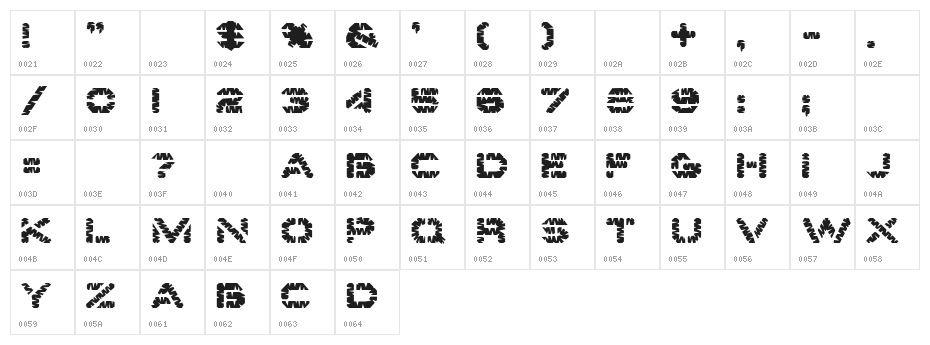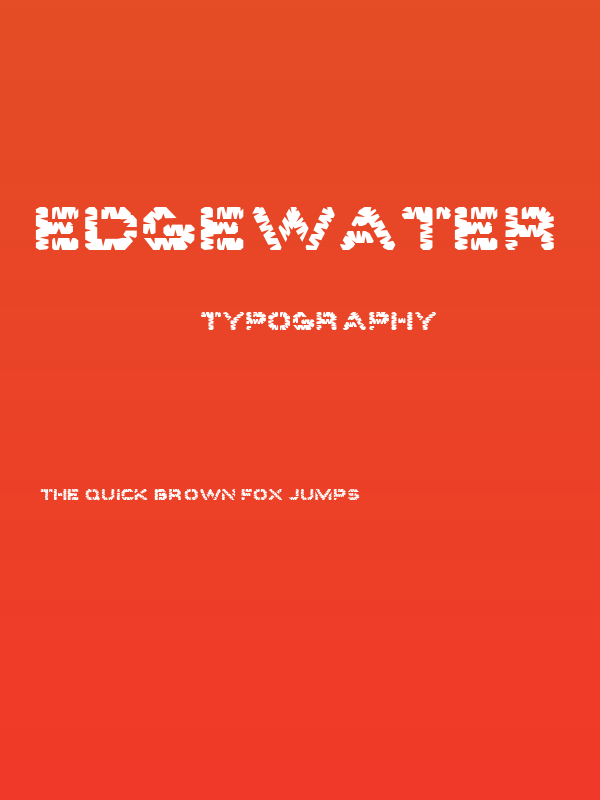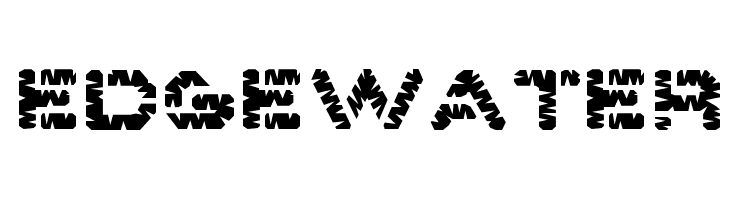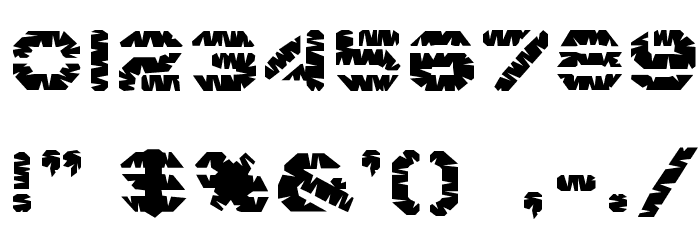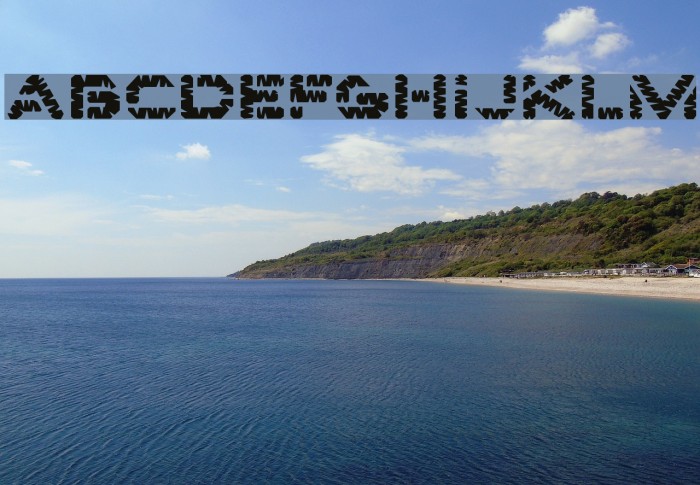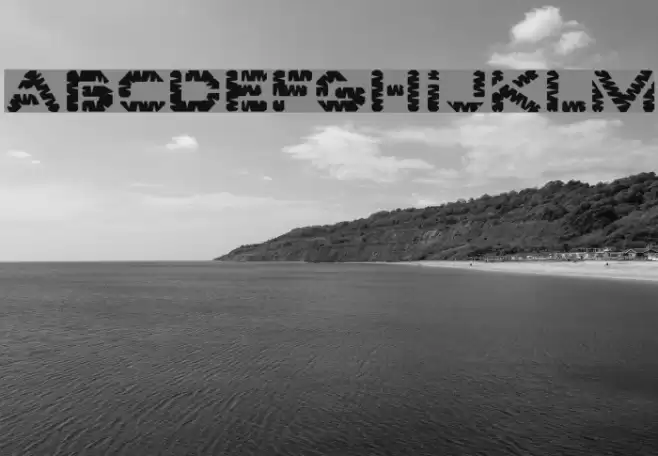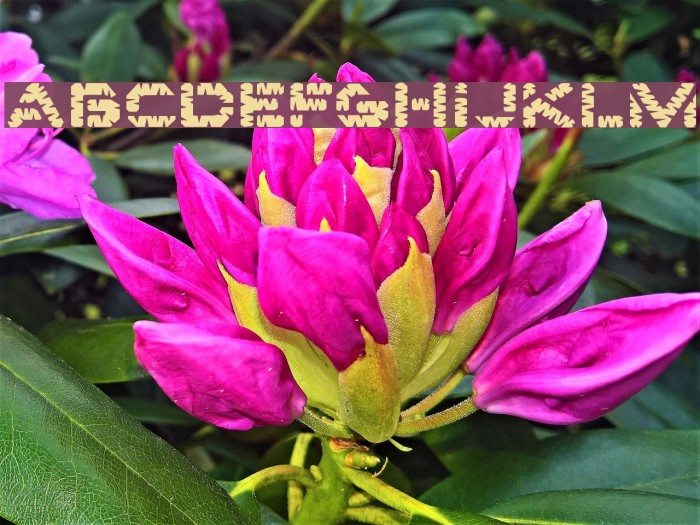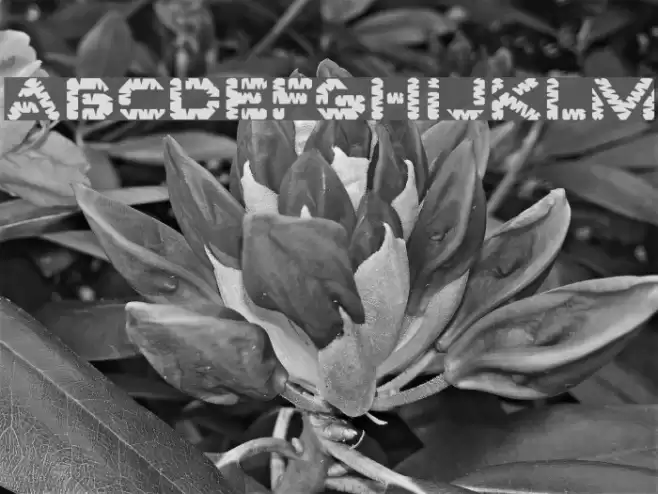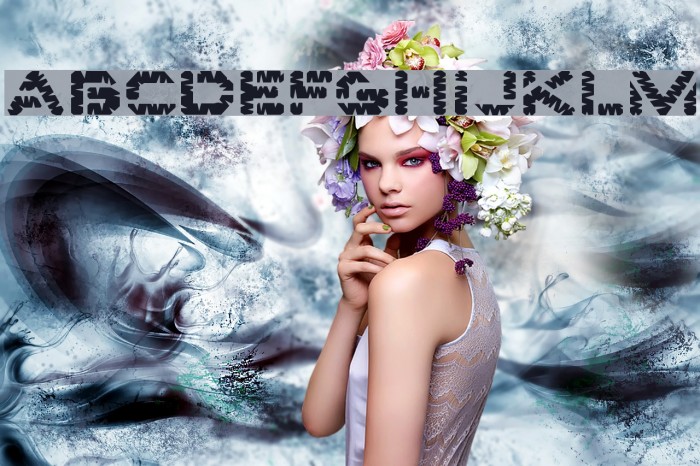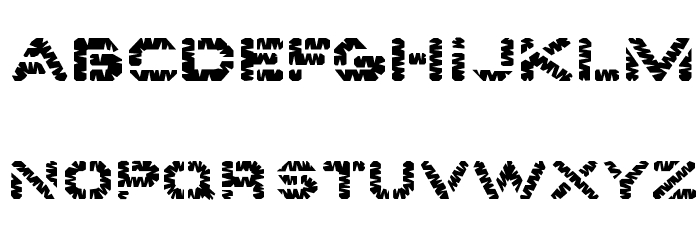
Edgewater Font
| Proiecte propuse | Ideal for album covers, posters, branding for edgy or modern products, and any design project that requires a bold statement. |